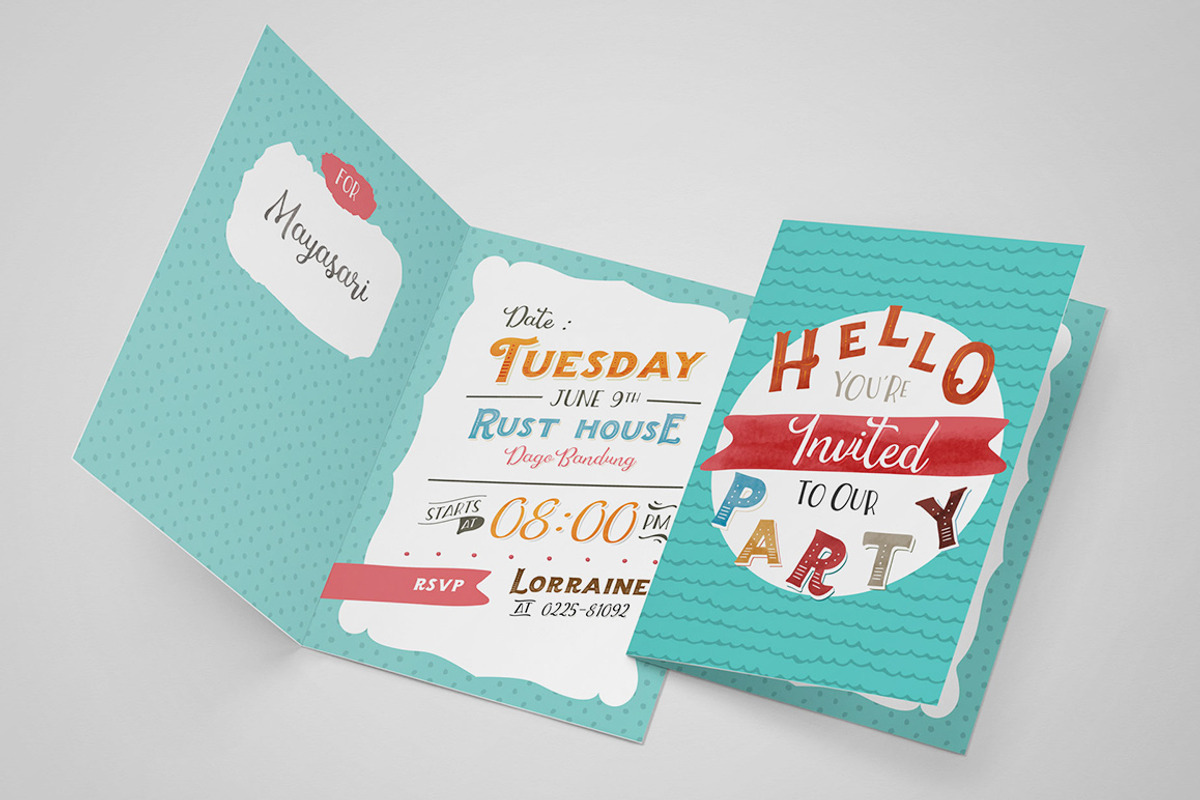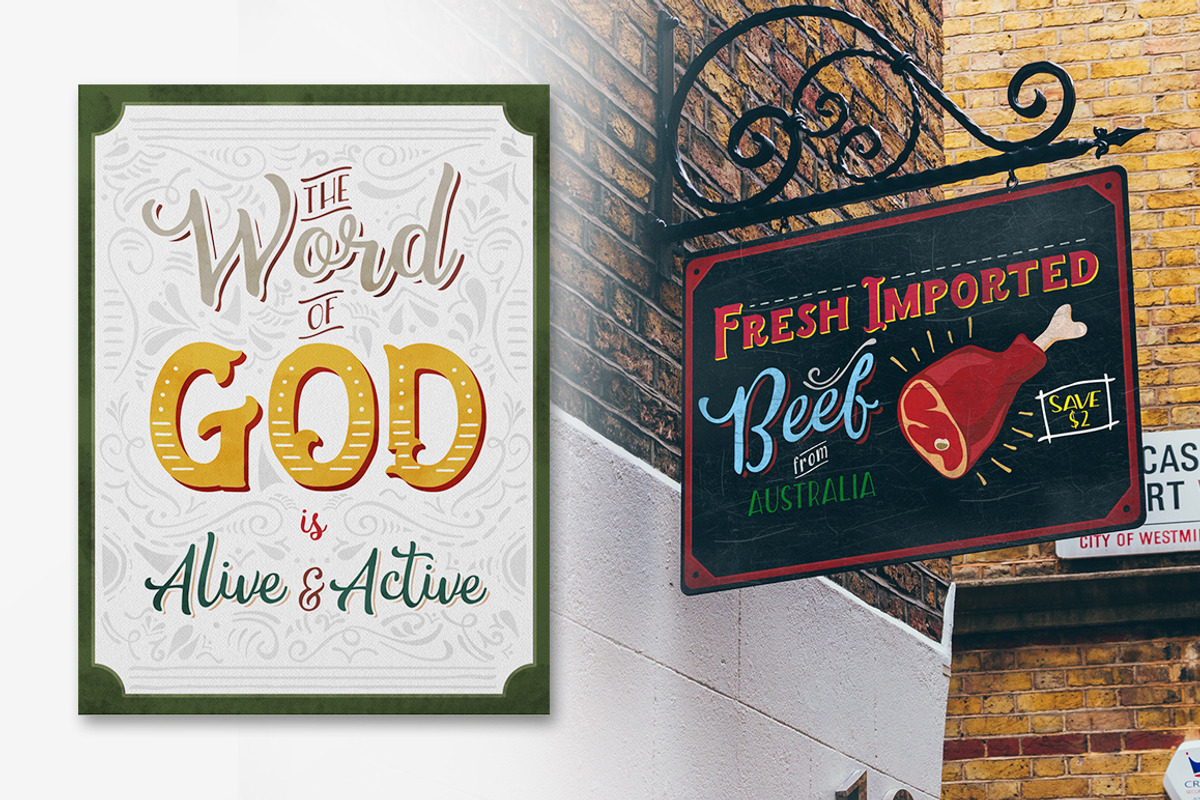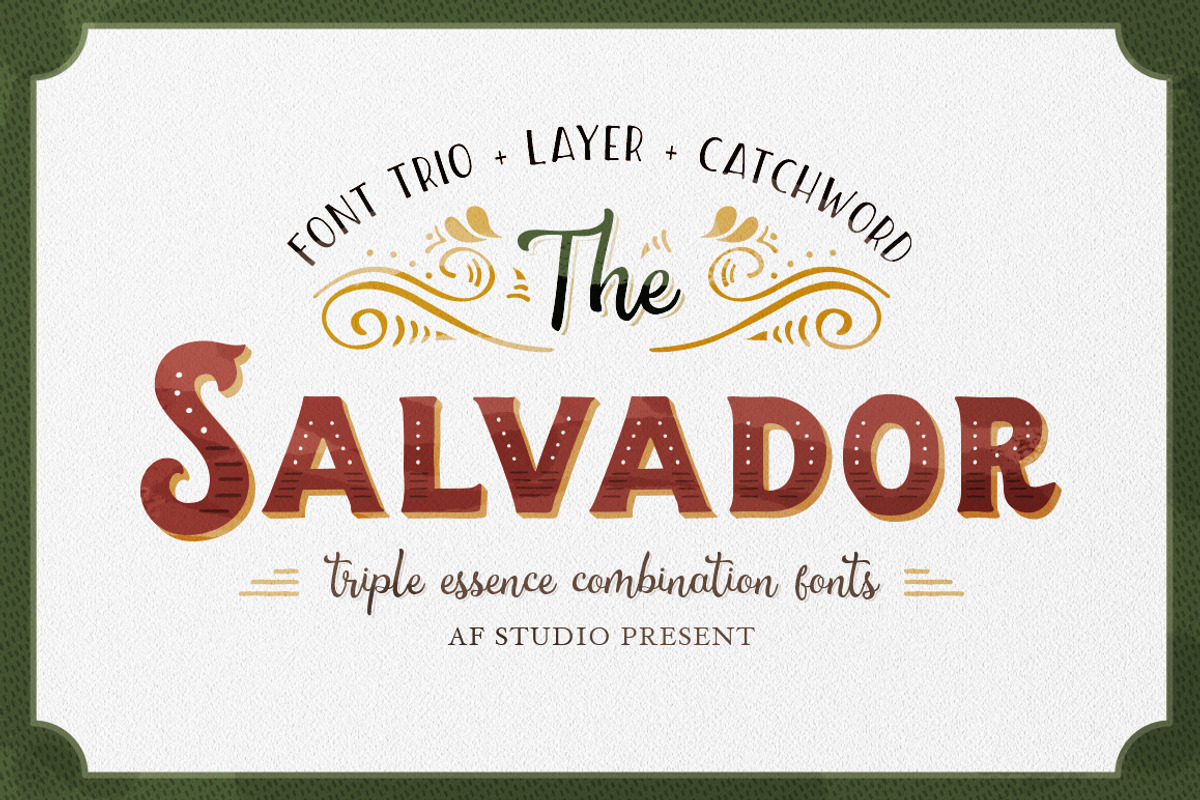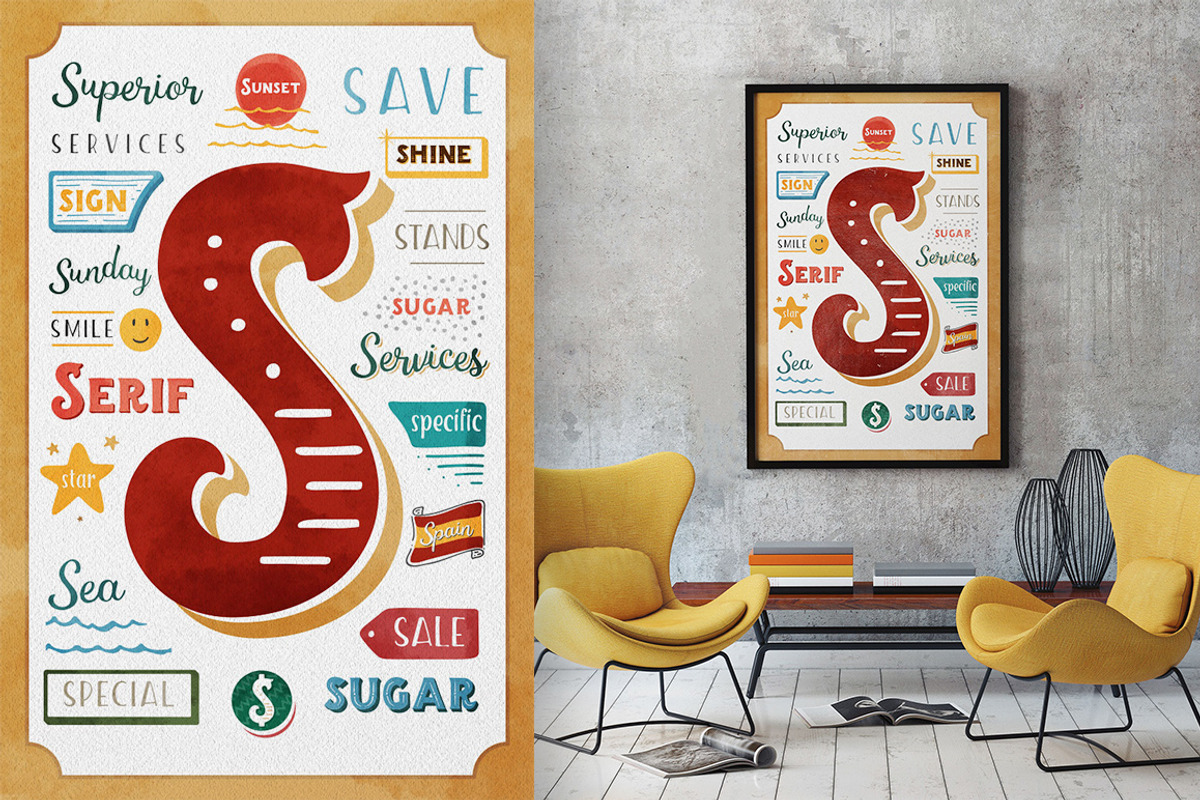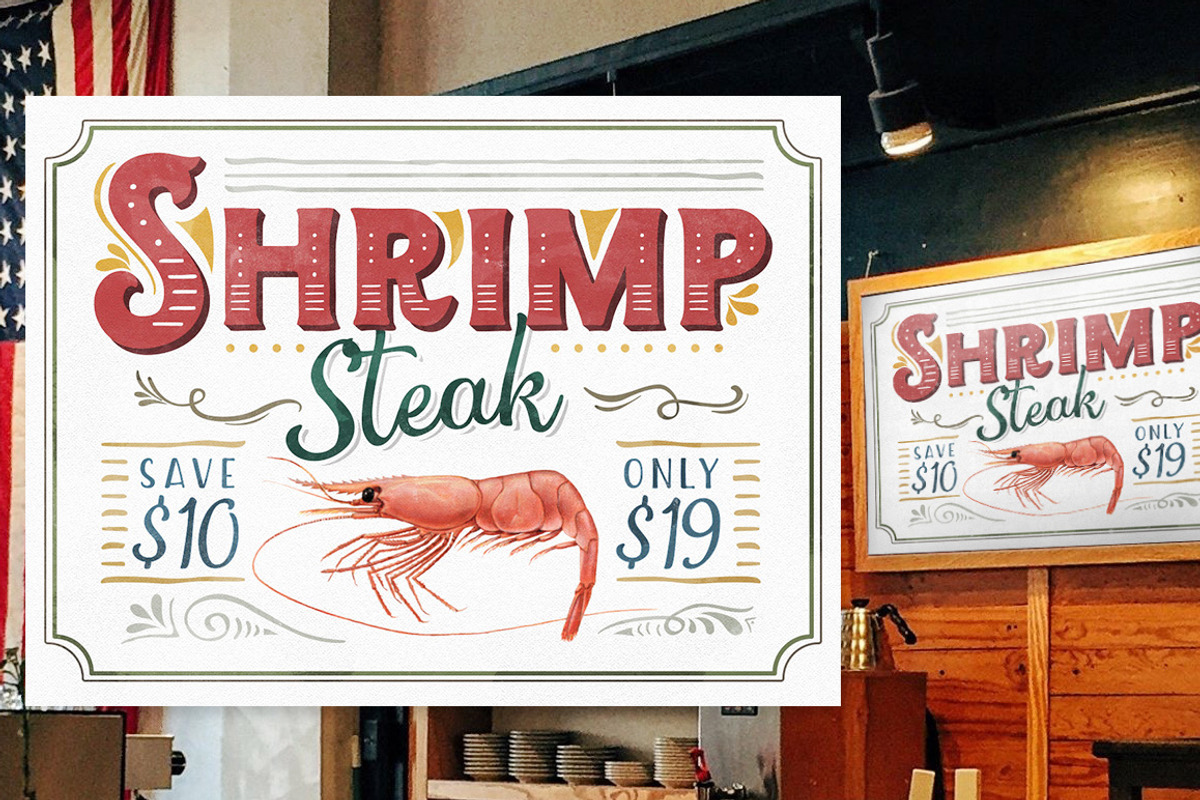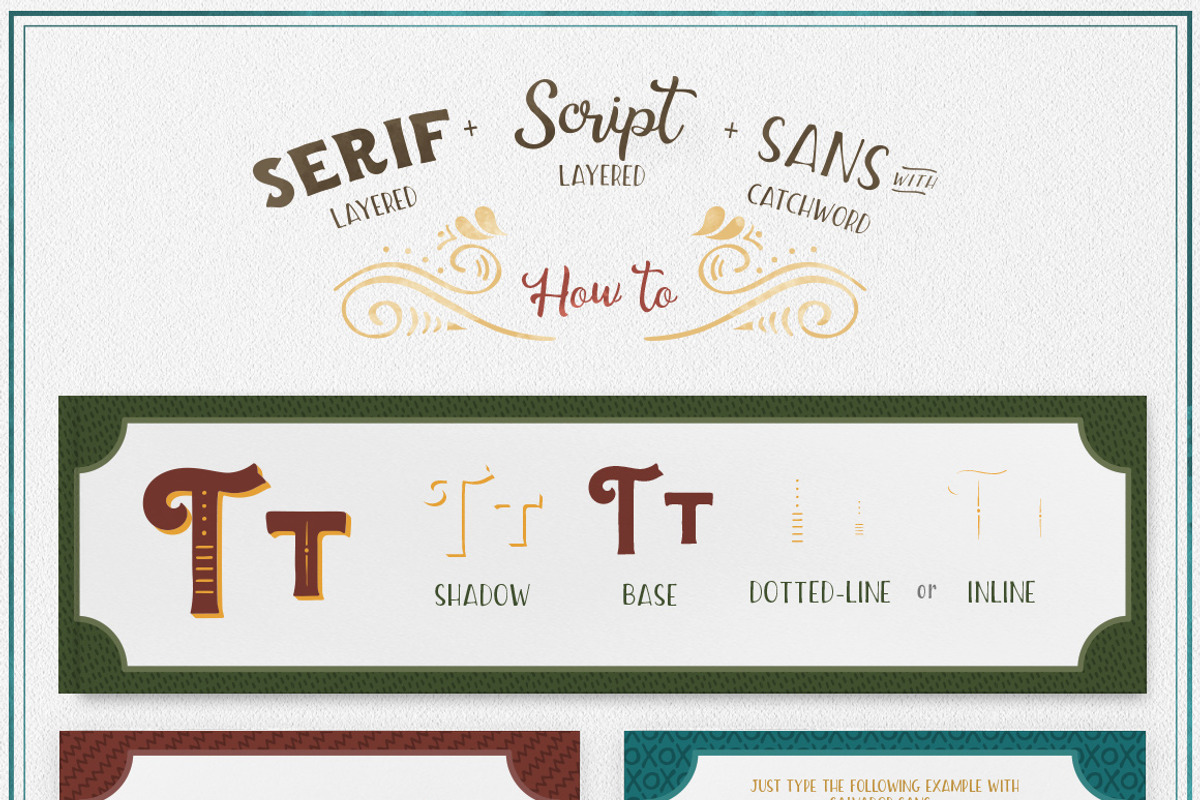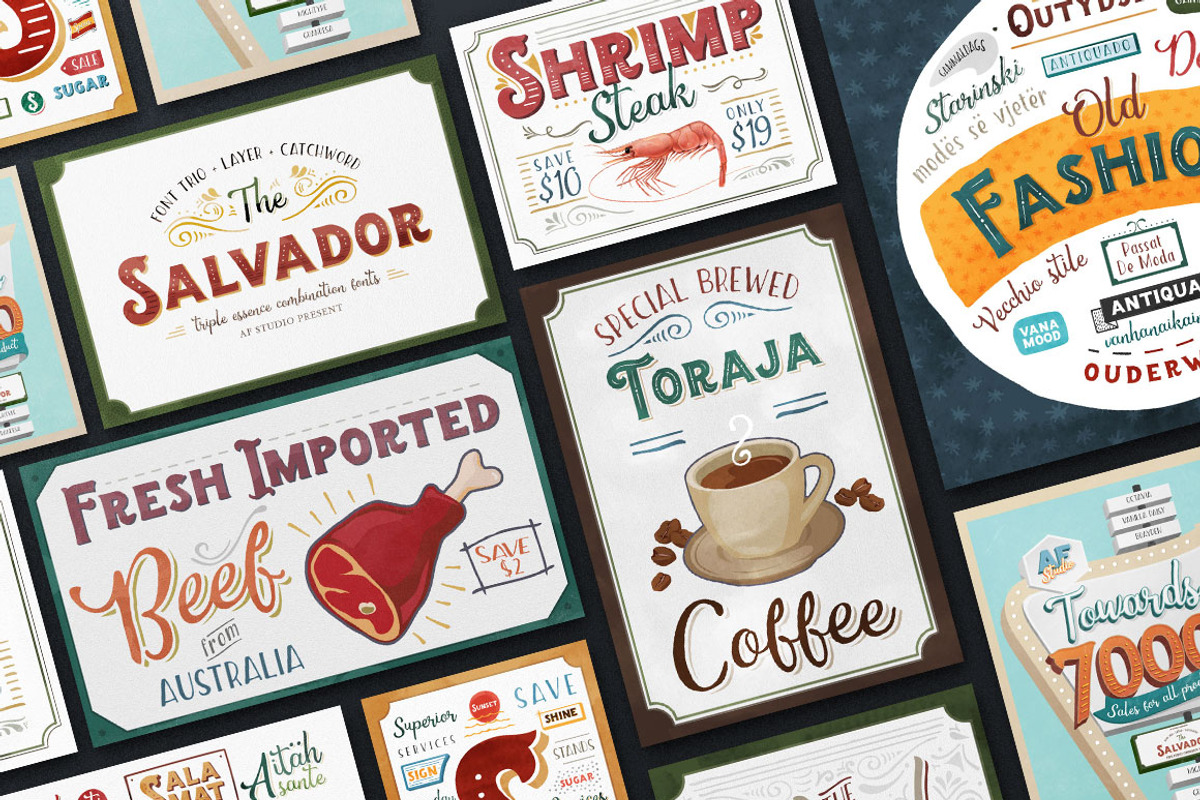
The Salvador - Font Combination
The Salvador - Font Combination by Adam Fathony is a font selected for branding, posters, packaging, typography.
- The Salvador Serif comes with 4 layers : Base, Shadow, and Inline or Dotted Inline.
- The Salvador Script also comes with layer : Base and Shadow.
Why The Salvador - Font Combination is worth a look
The Salvador - Font Combination by Adam Fathony fits naturally into Branding, posters, packaging, typography.